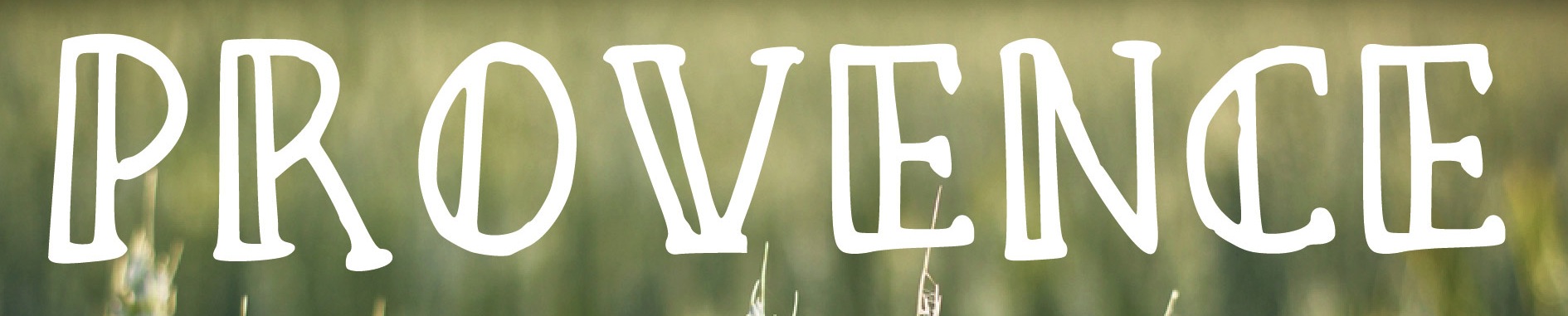
Shelly Laslo
Illustrator Shelly Laslo (Draw Baby Draw Designs) created the hand-crafted poster typefaces Provence, Story, Allegro, Barber Shop, Awkward, Net WT, Crocodilia, The Editor, Oliver and Aperture in 2014.